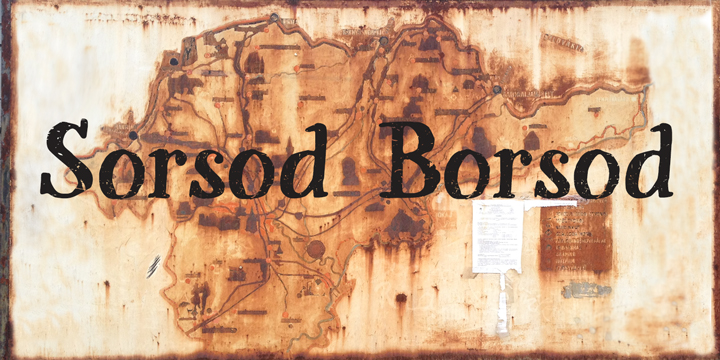
Preview and download Sorsod Borsod Font. Created by Runes & Fonts in Fancy Eroded styles with Demo license.
SORSOD BORSOD DEMO is a demo version of a hand drawn serif font with a marker. It's a saying here means "your destiny is Borsod county" This is where I live. It's in Hungary. For commercial use and/or full version and license please contact me via email (myhandwritings@gmail.com) Please feel free contatct me if you have any questions or feedback. You MAY NOT sell this font or claim them as your own. You MAY NOT edit or rename this font. You MAY NOT redistribute this font. Thank you & I hope you like this font, Roland http://www.rolandhuse.com https://www.facebook.com/pages/Runes-And-Fonts/123221817784772 |